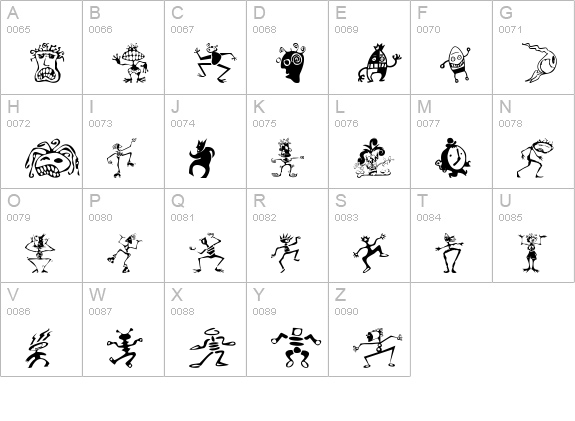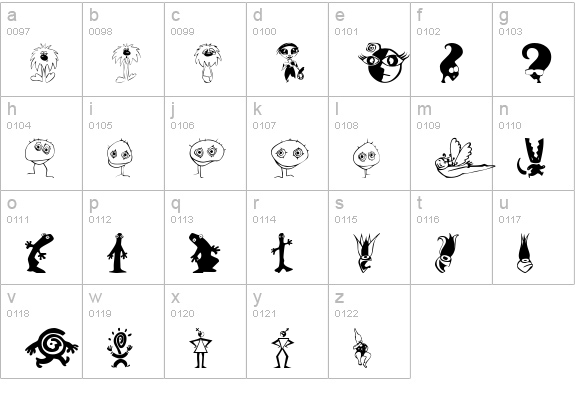
Introducing Kooksters font - a whimsical and playful typeface that adds a touch of fun to any design project. Ideal for children's books, birthday invitations, and quirky branding, Kooksters exudes charm and personality with its unique letterforms and quirky details. This delightful font is freely available to download at FontsMarket.com, making it accessible for designers and creatives looking to add a touch of whimsy to their projects. With its bold and distinctive style, Kooksters is sure to make a statement and bring a smile to your audience's faces. Whether you're looking to create a cheerful poster, a playful logo, or a charming greeting card, Kooksters is the perfect choice for adding a touch of whimsical flair. Download Kooksters font today and let your creativity run wild with this free and fabulous typeface!